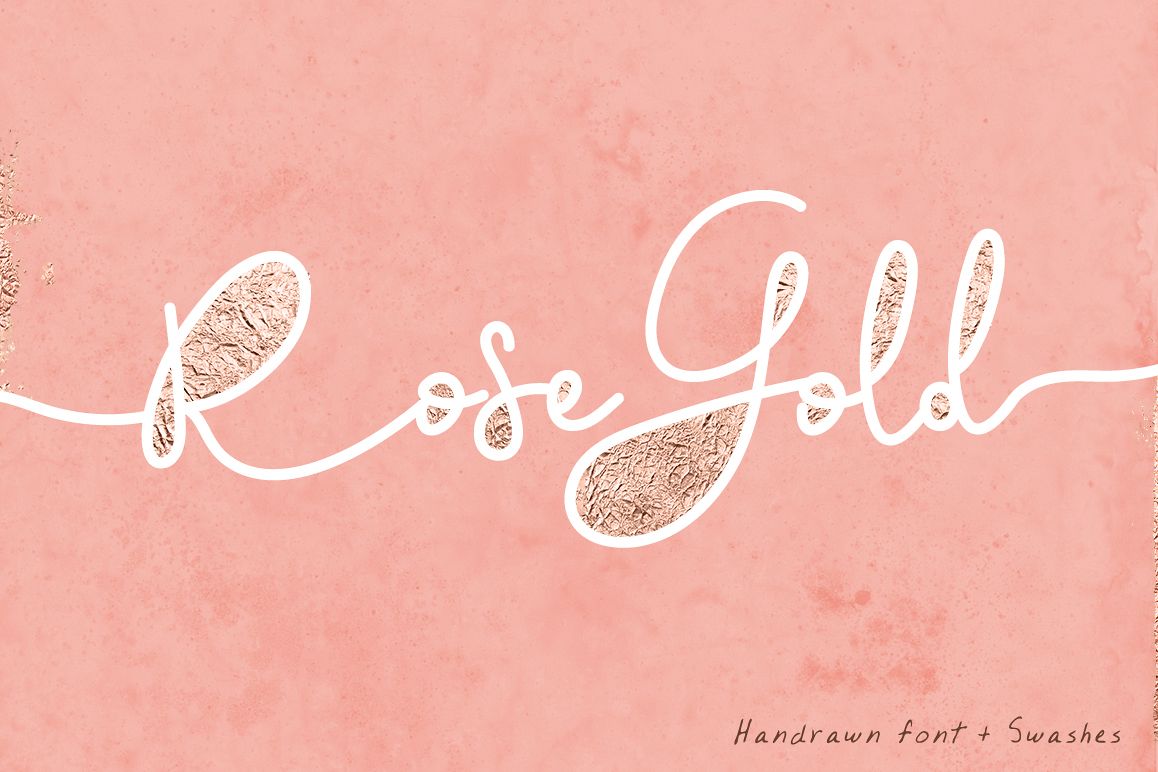
Rose Gold Font and Swatches
RoseGold-Regular
RoseGold-Swashes
Rose Gold is a smooth script font great for posters, invitations,
greeting cards, business cards, logos, etc. Match the font with the 26
swatches included, for a beautiful touch!
Uppercase and lowercase, numbers and punctuation.